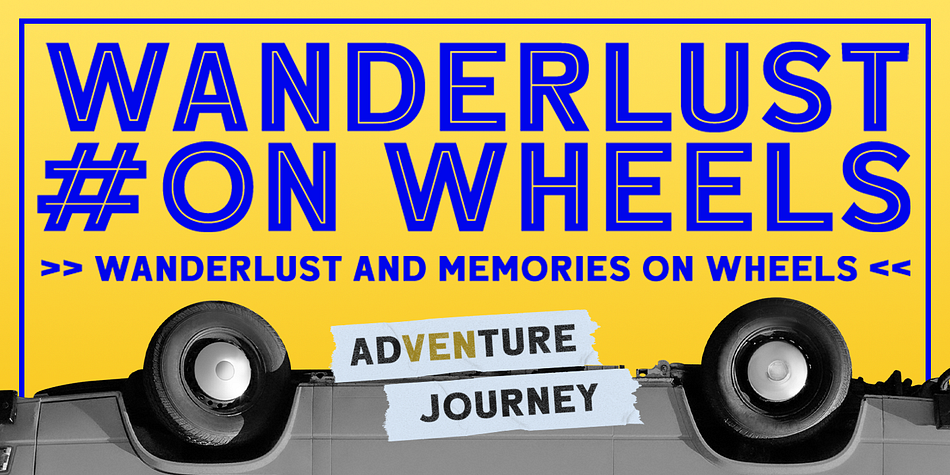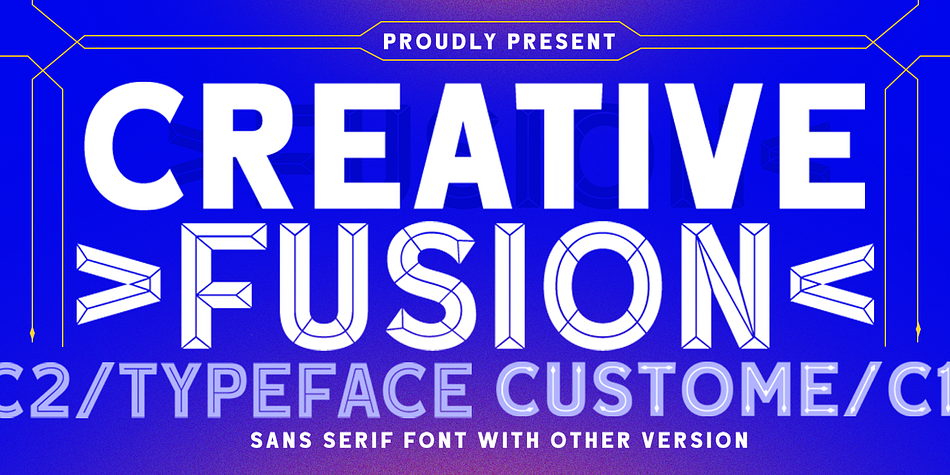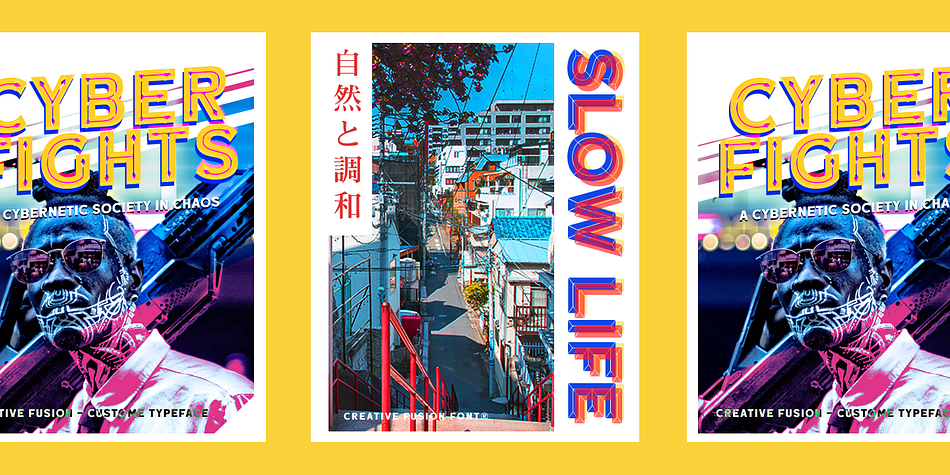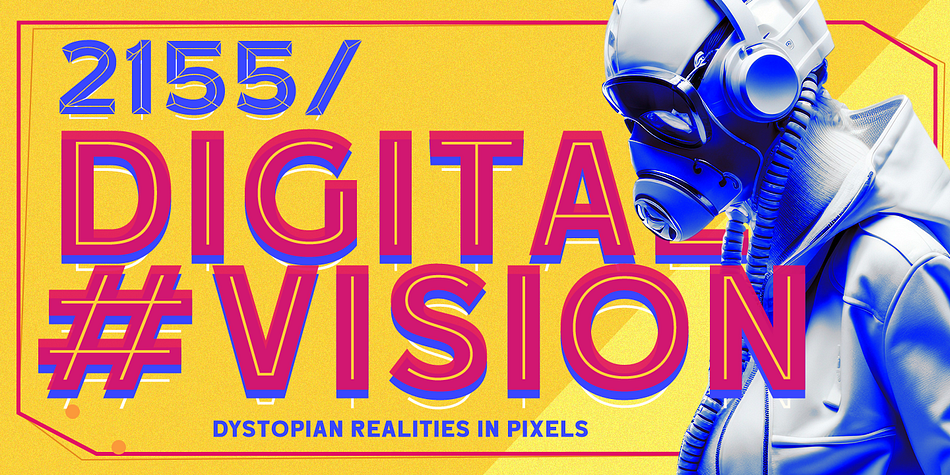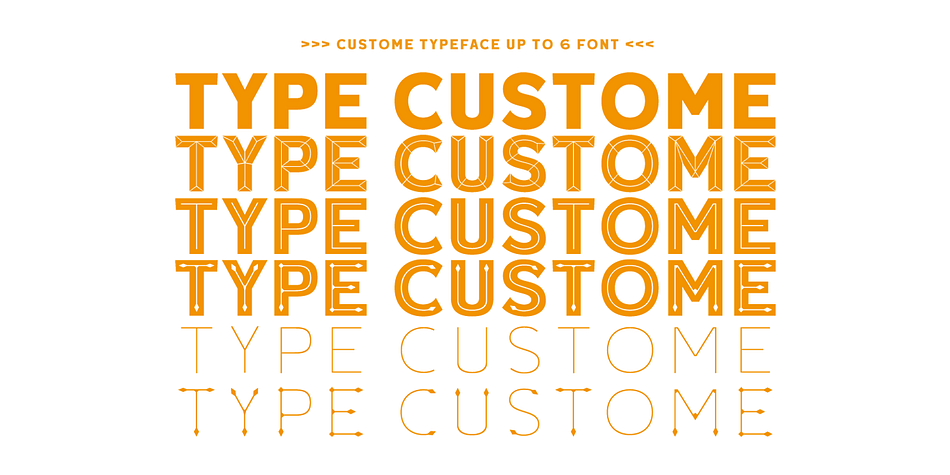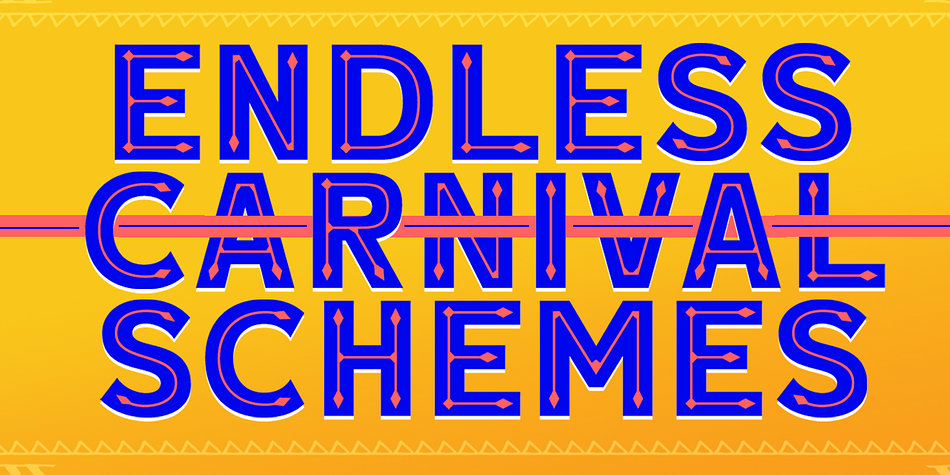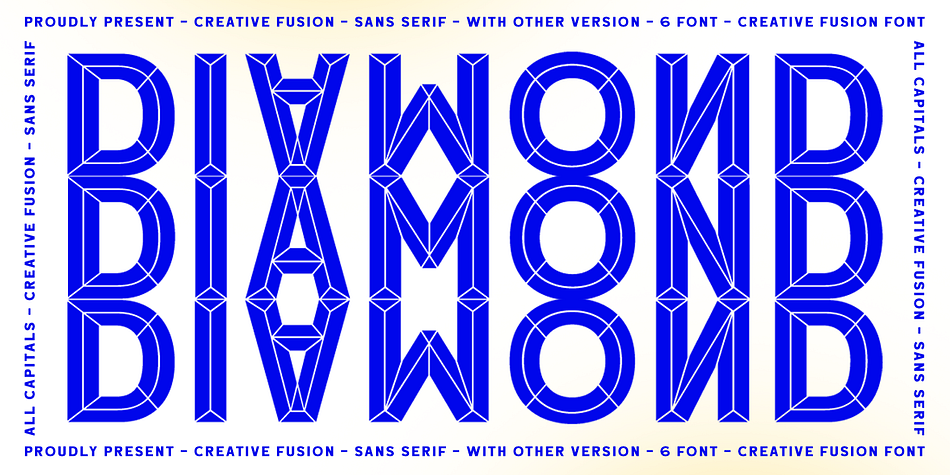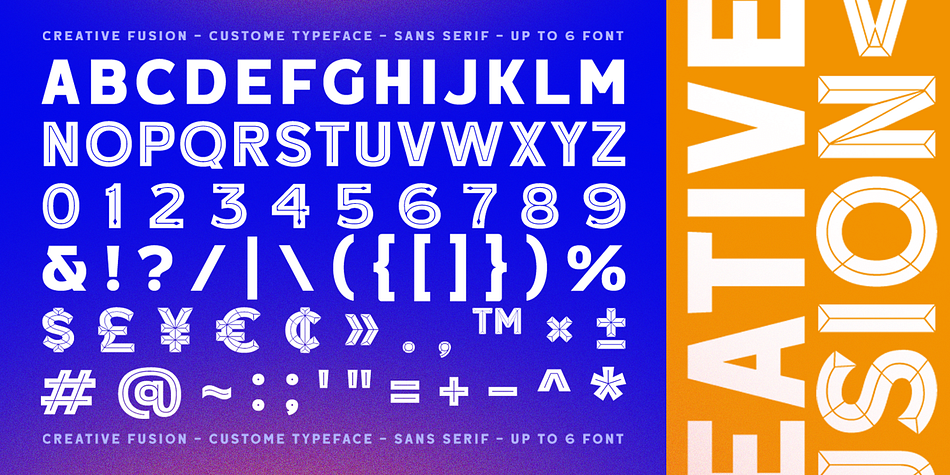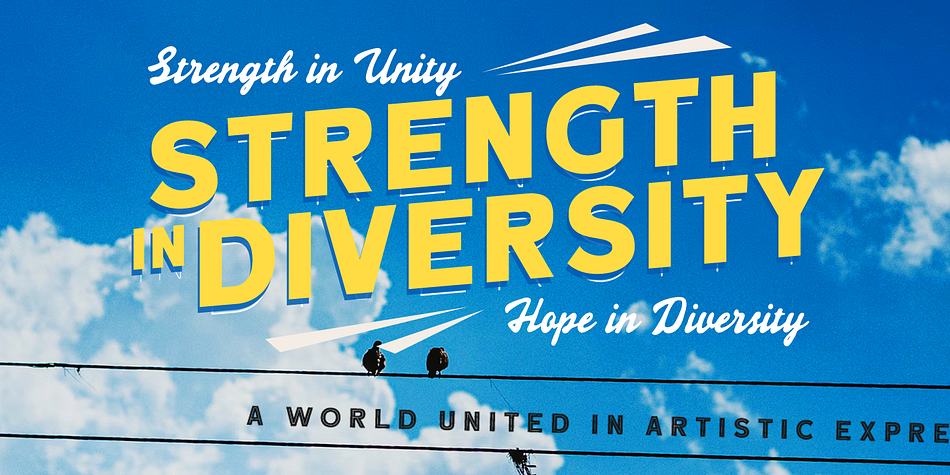
CREATIVE FUSION
Designed by Hendry Juanda, Creative Fusion is a display sans font family. This typeface has six styles and was published by Letterhend Studio.
Fresh off the press! Introducing Custom Fusion - the Custom typeface with innovative “inline” styles – six unique options all in one font. This custom font is highly flexible, catering to various looks you may require.
This font perfectly made to be applied especially in logo, and the other various formal forms such as invitations, labels, logos, magazines, books, greeting / wedding cards, packaging, fashion, make up, stationery, novels, labels or any type of advertising purpose.